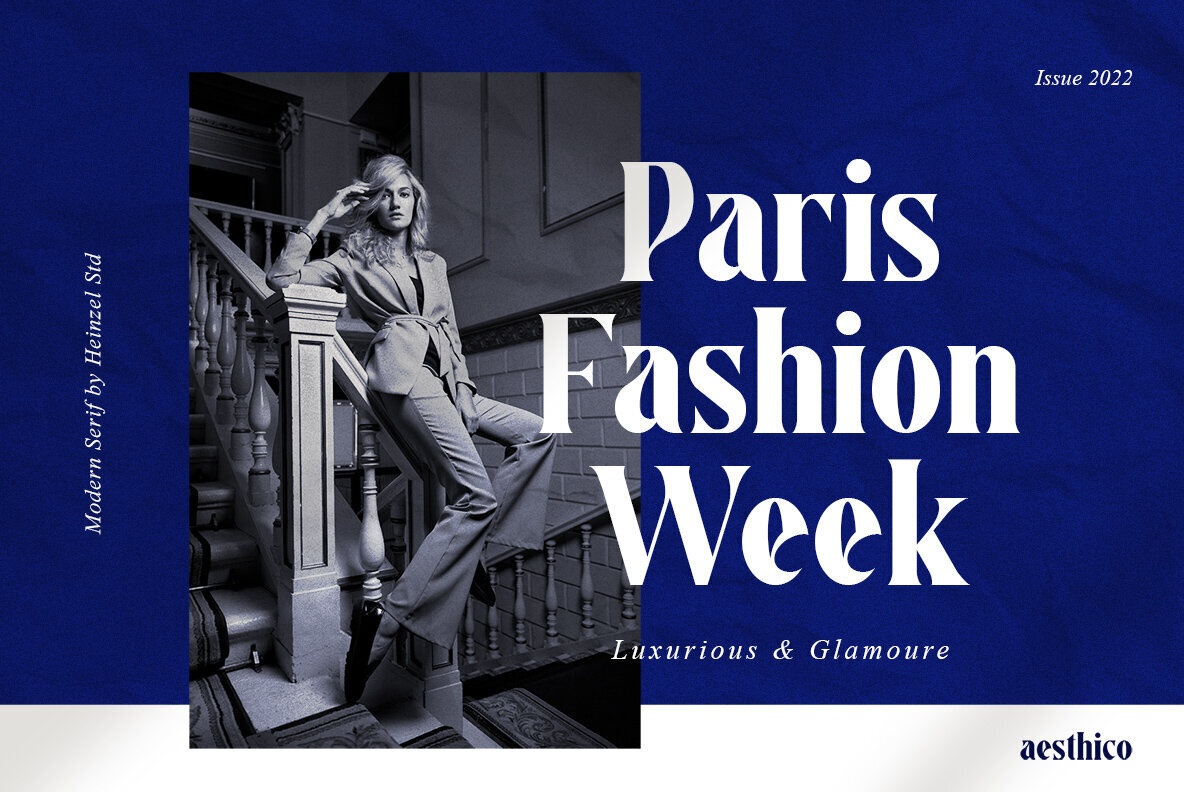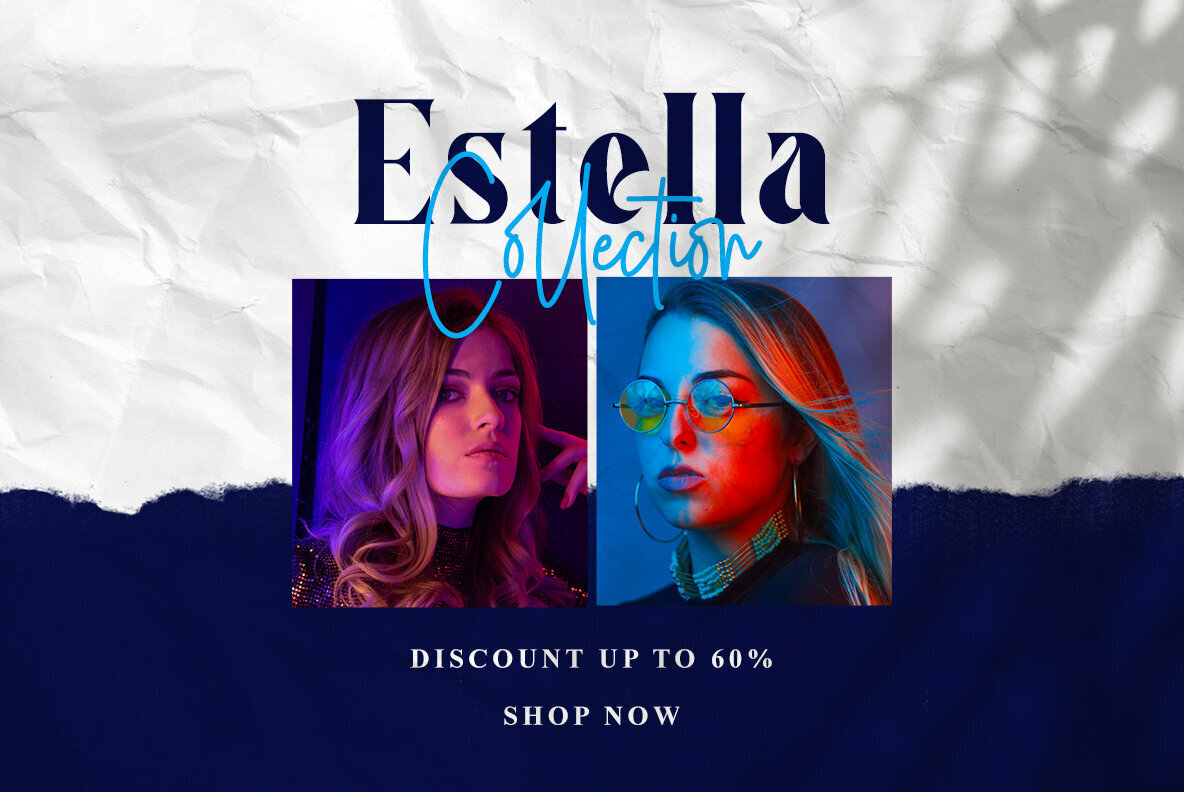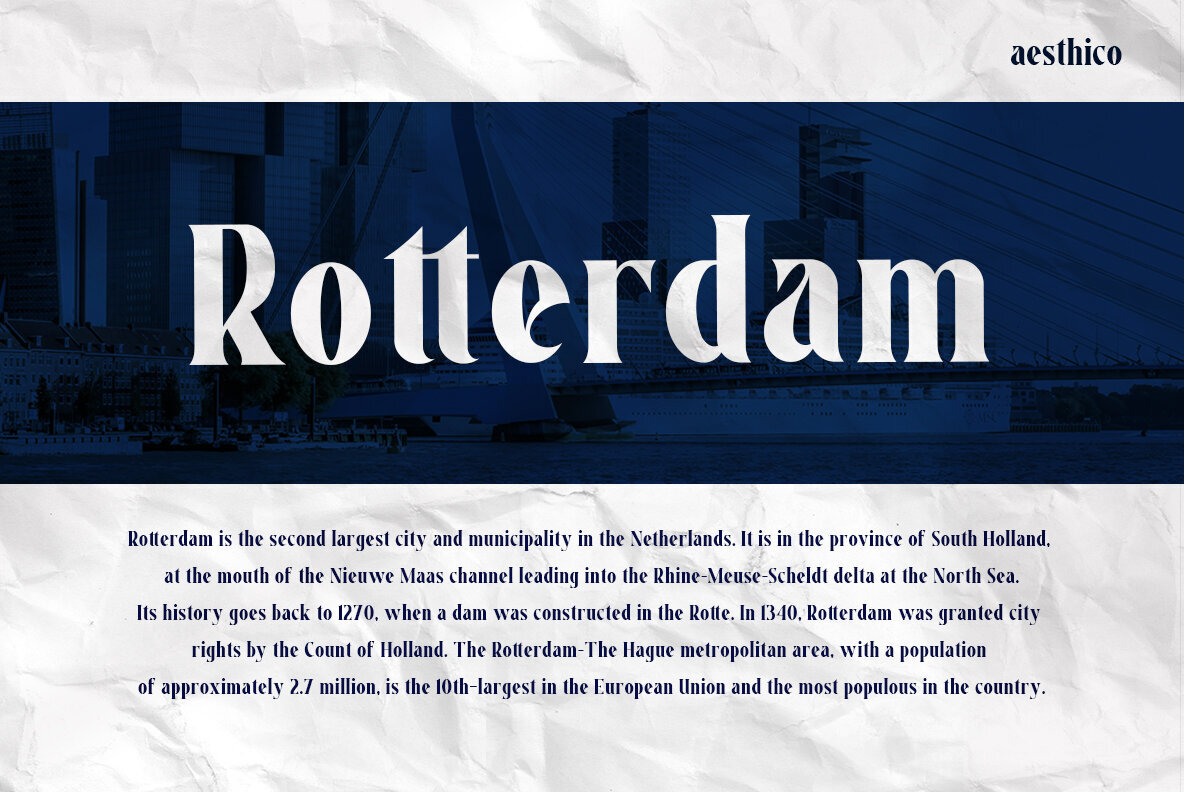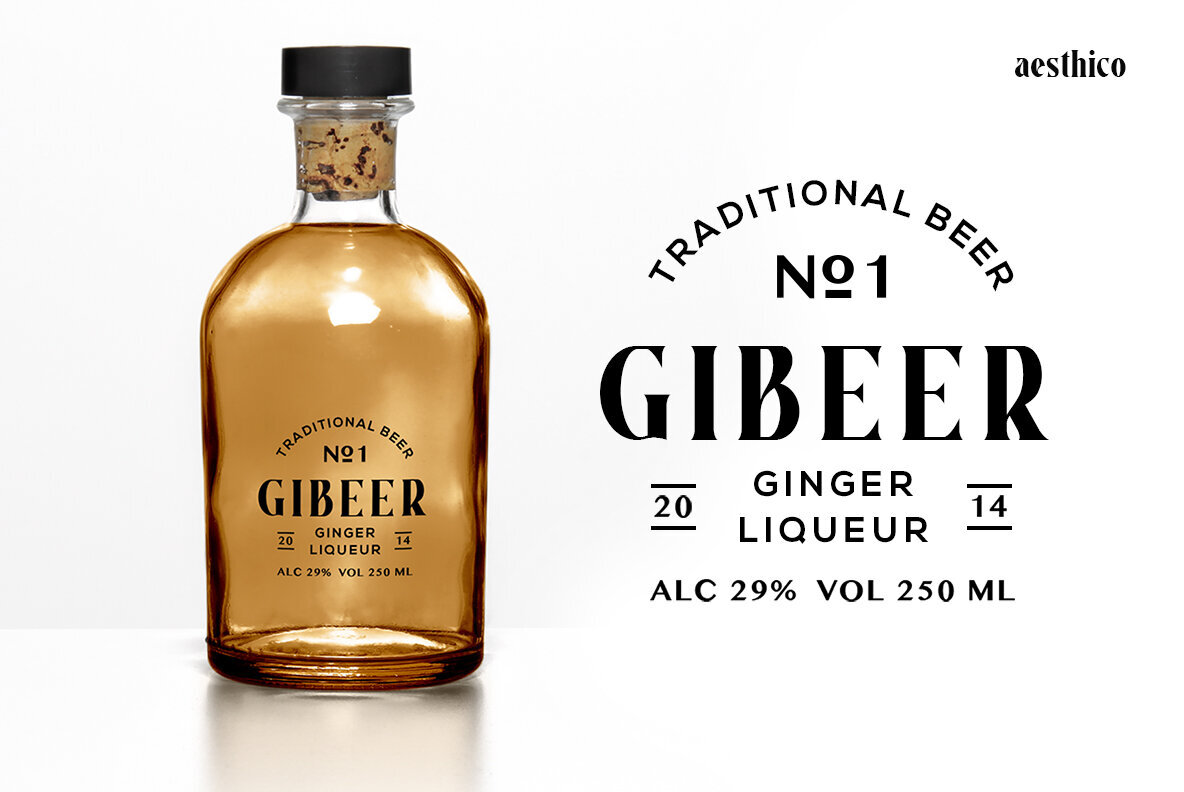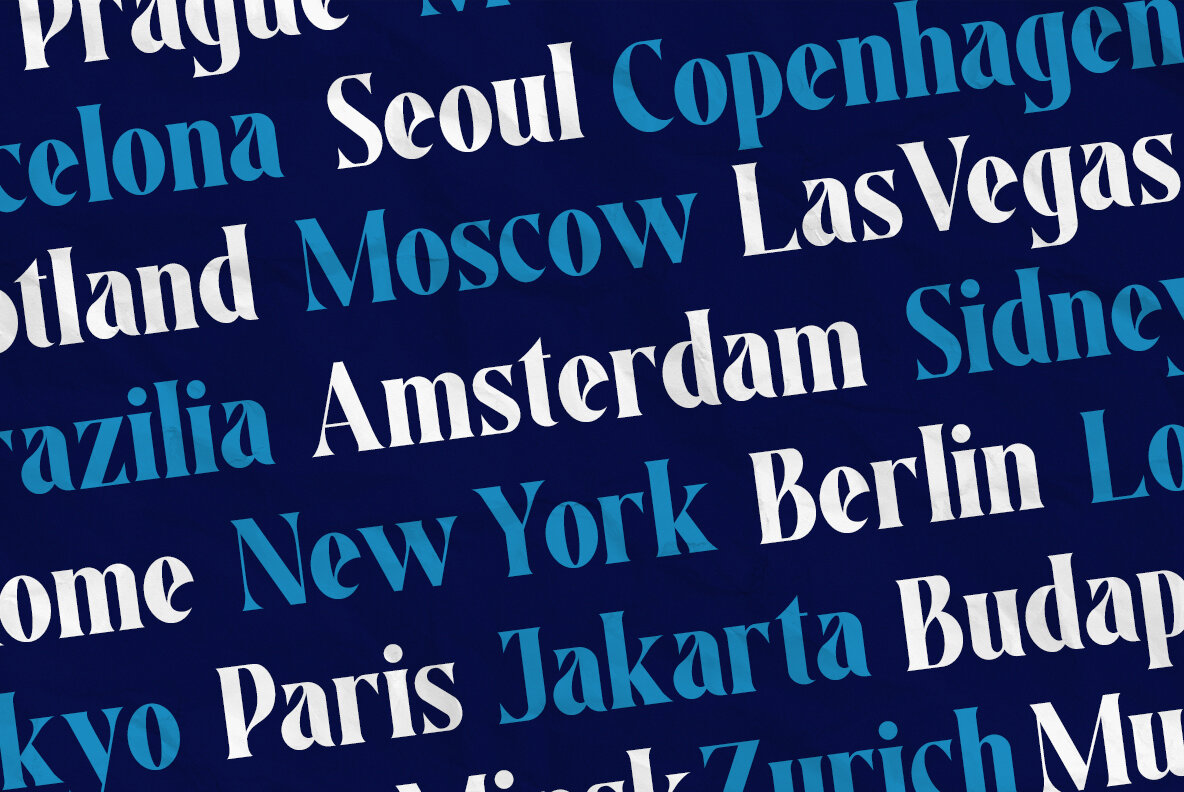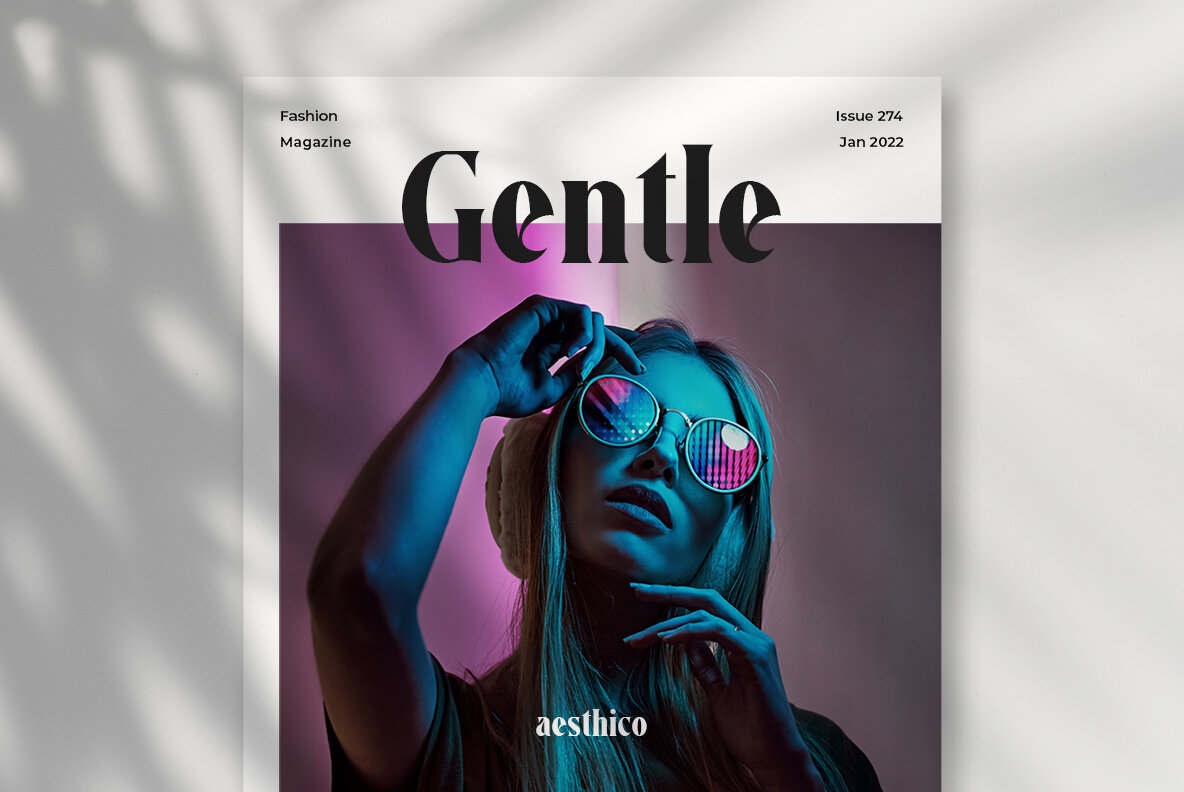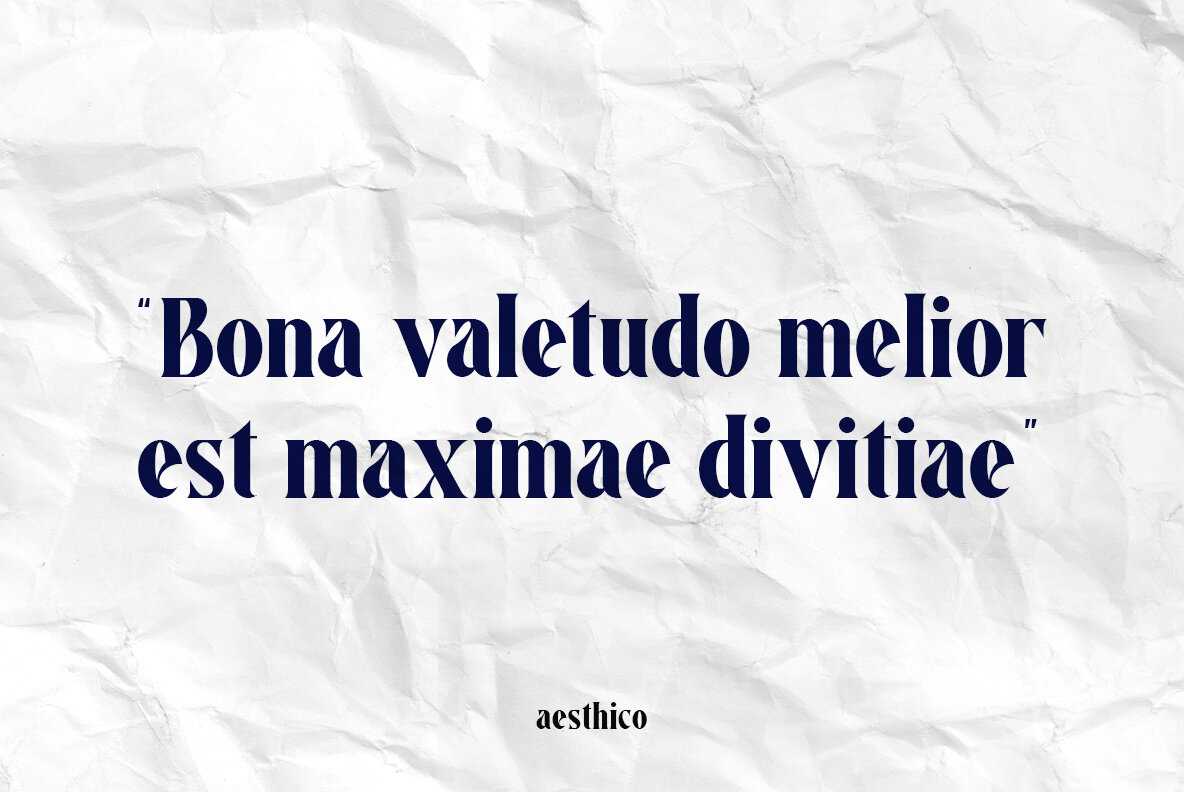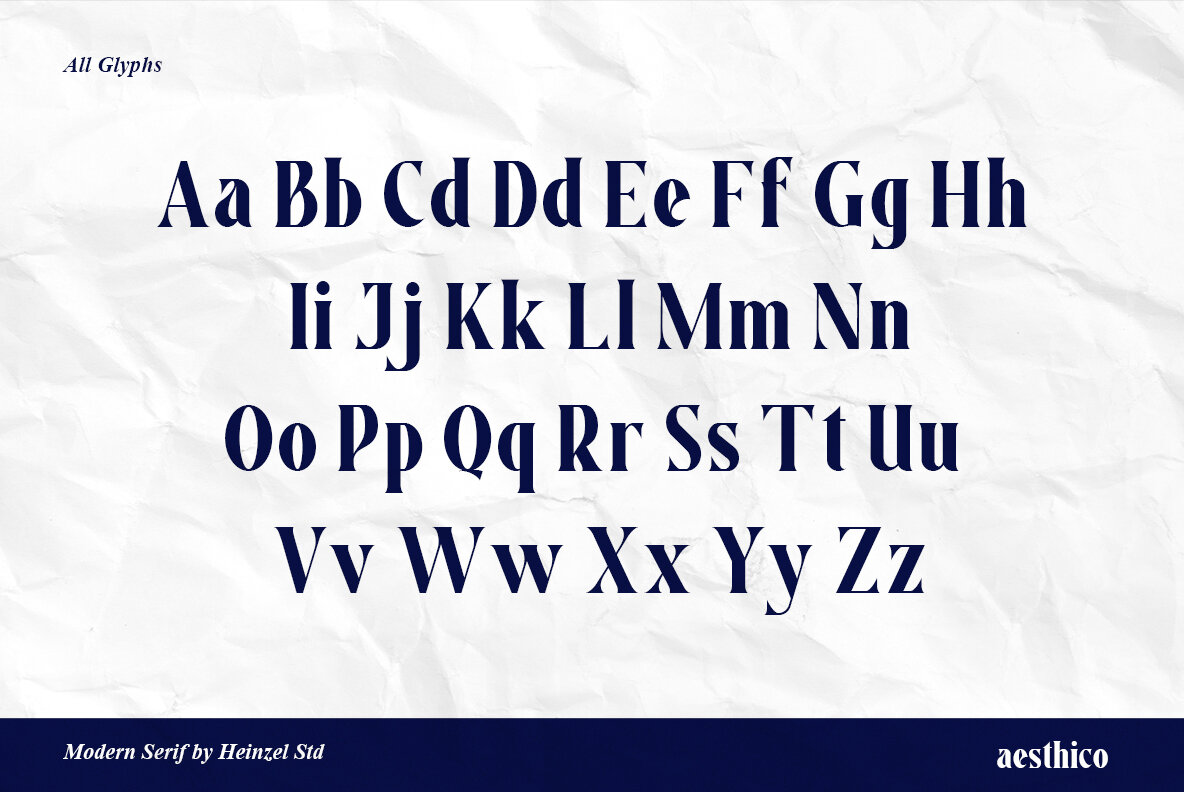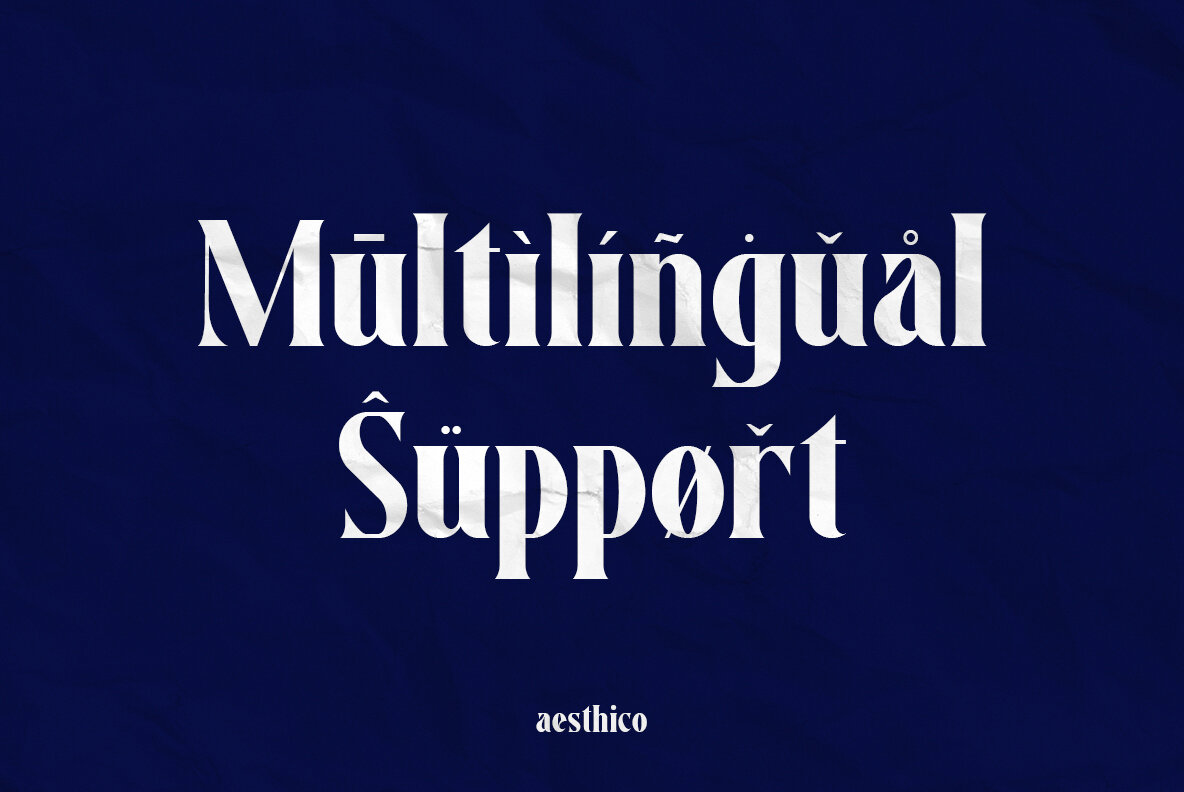
Aesthico Font
Aesthico
Inspired by the popular logo of a magazine, Aesthico is an elegant and modern font. It can be used for headlines or logos in your designs to give them that extra touch! This typeface also comes with PUA encoding which means you will have access all of its amazing features without any hassle at all - what more could someone want?